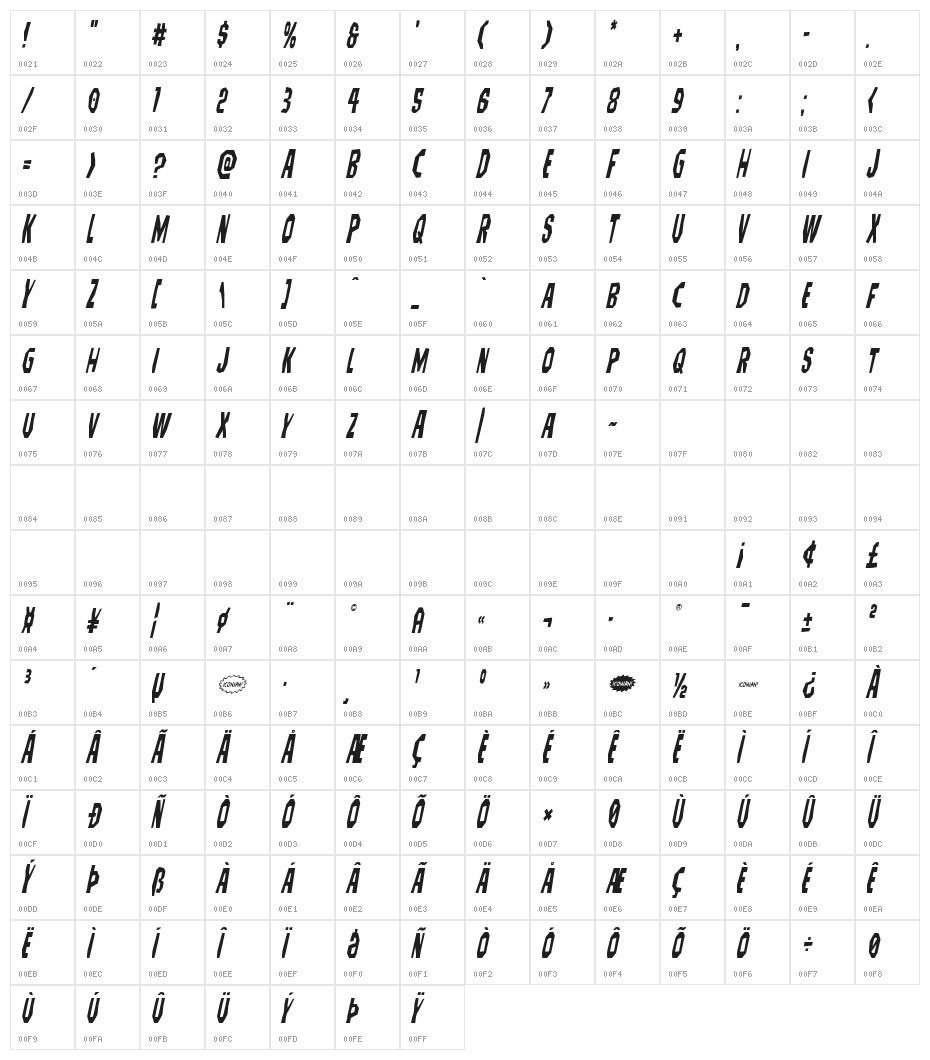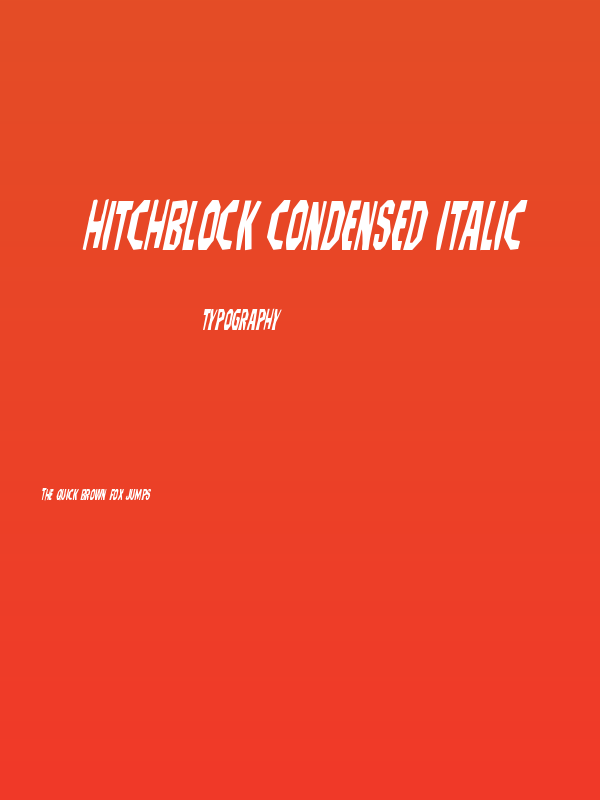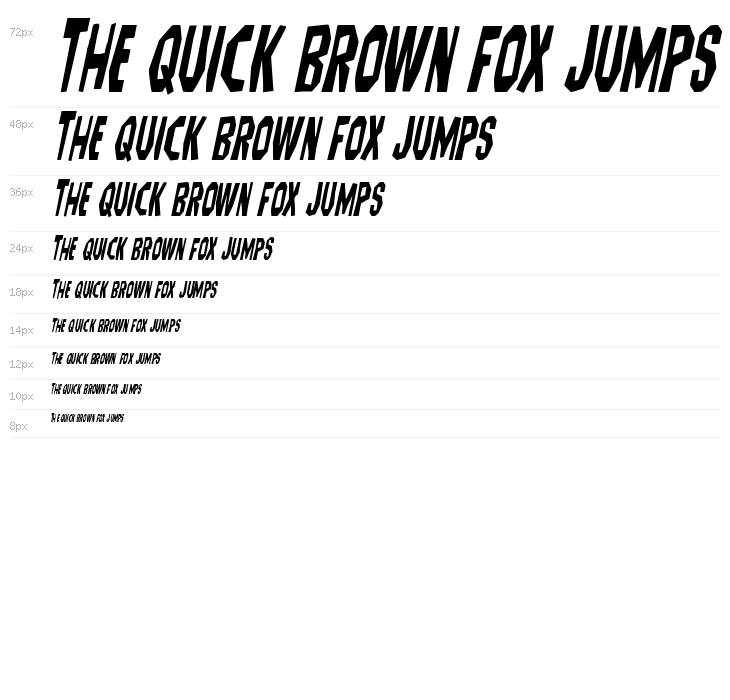
Hitchblock Condensed Italic Font
Hitchblock Condensed Italic Description
This font features a bold and dynamic style with a condensed and italicized form. The characters are sharply angled, giving a sense of motion and urgency. The uppercase and lowercase letters maintain a consistent slant, enhancing the italic effect. The numbers and special characters follow the same stylistic approach, ensuring uniformity across all glyphs. The bold weight of the font makes it stand out, while the condensed width allows for efficient use of space. This font is ideal for projects that require a strong visual impact.
| Proposed Projects | Ideal for sports branding, dynamic posters, action-themed designs, and impactful headlines. |